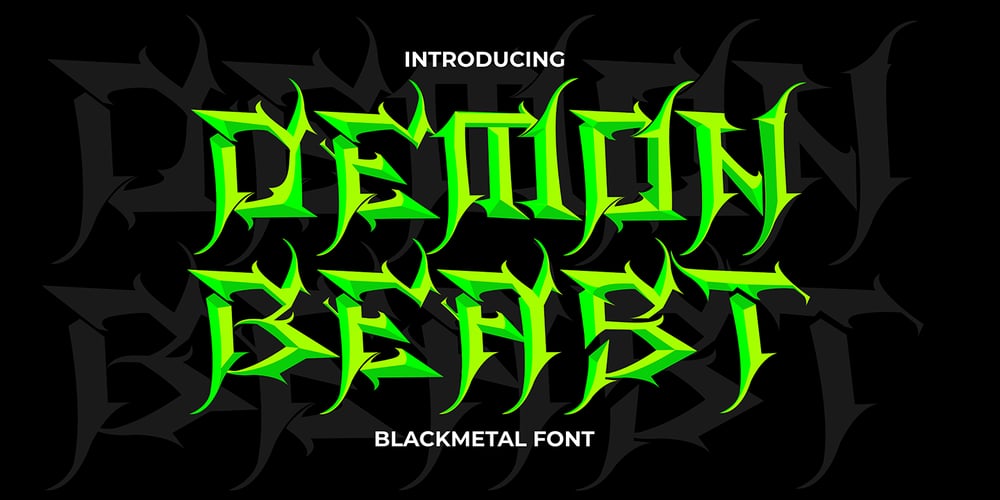
Demon Beast Blackmetal Font Family was designed by Sipanji and published by Sipanji21. Demon Beast Blackmetal contains 1 styles and family package options. Demon Beast is a font filled with dark and menacing vibes, making it a perfect choice to evoke an intense Black Metal atmosphere that aligns well with Halloween themes. Inspired by terrifying creatures and symbols associated with darkness, each character in the Demon Beast font portrays power and fear. With sharp lines and angular shapes, it exudes a strong and mysterious impression, creating an eerie and captivating aura. This font embraces gothic elements, featuring intricate artistic touches and sharp details. Each letter resembles icons related to the supernatural world, as if conjuring up frightening creatures from the depths of darkness. With Demon Beast, you can create text that is captivating, powerful, and enchanting. It is well-suited for use in designing posters, stickers, greeting cards, or graphic elements to celebrate Halloween, adding a mystical and spine-chilling touch necessary to set the right atmosphere for Halloween-related projects. If you’re seeking a font that exudes a strong Black Metal aura and embodies terrifying darkness, Demon Beast is the perfect choice. With its captivating and mesmerizing appearance, this font will serve as a powerful asset in embodying the aesthetics associated with Halloween and the Black Metal music genre.